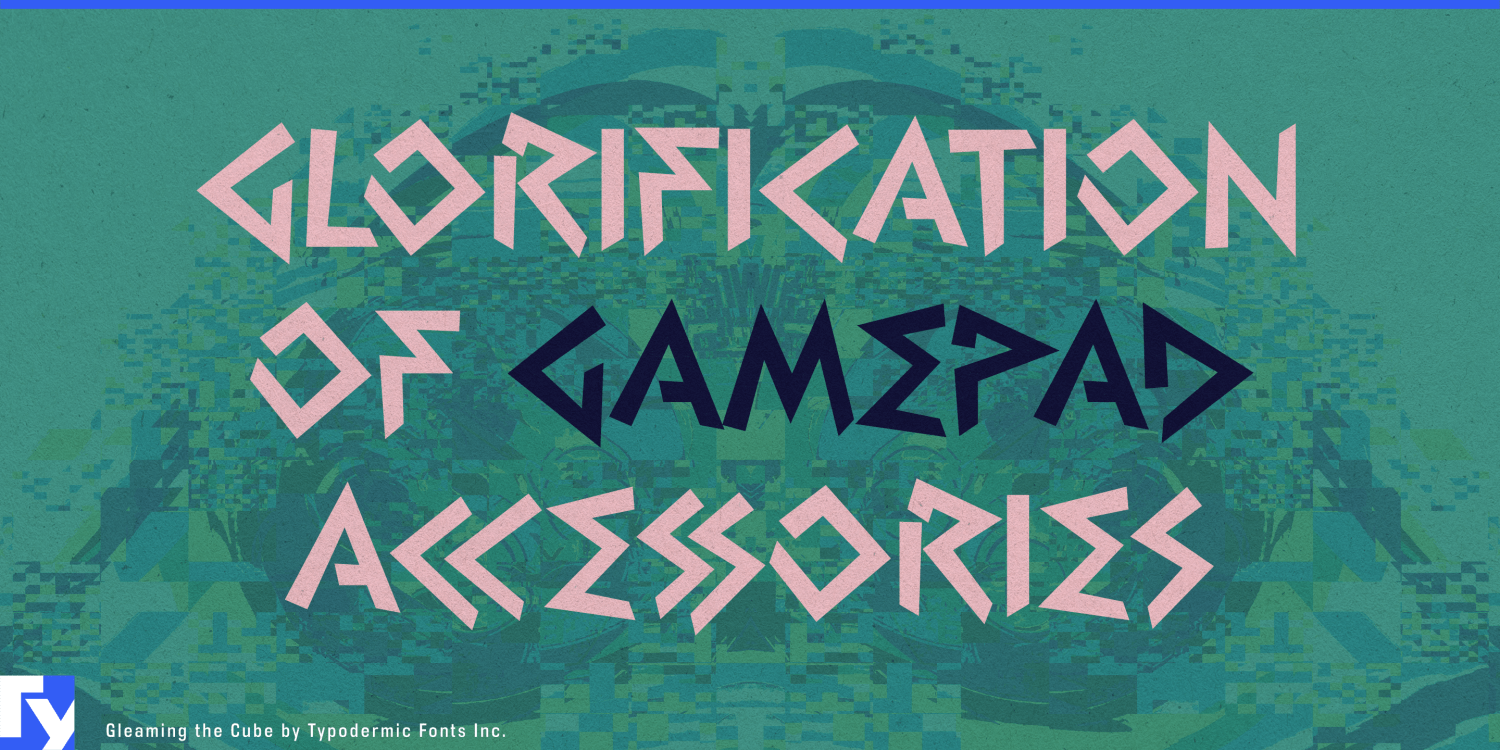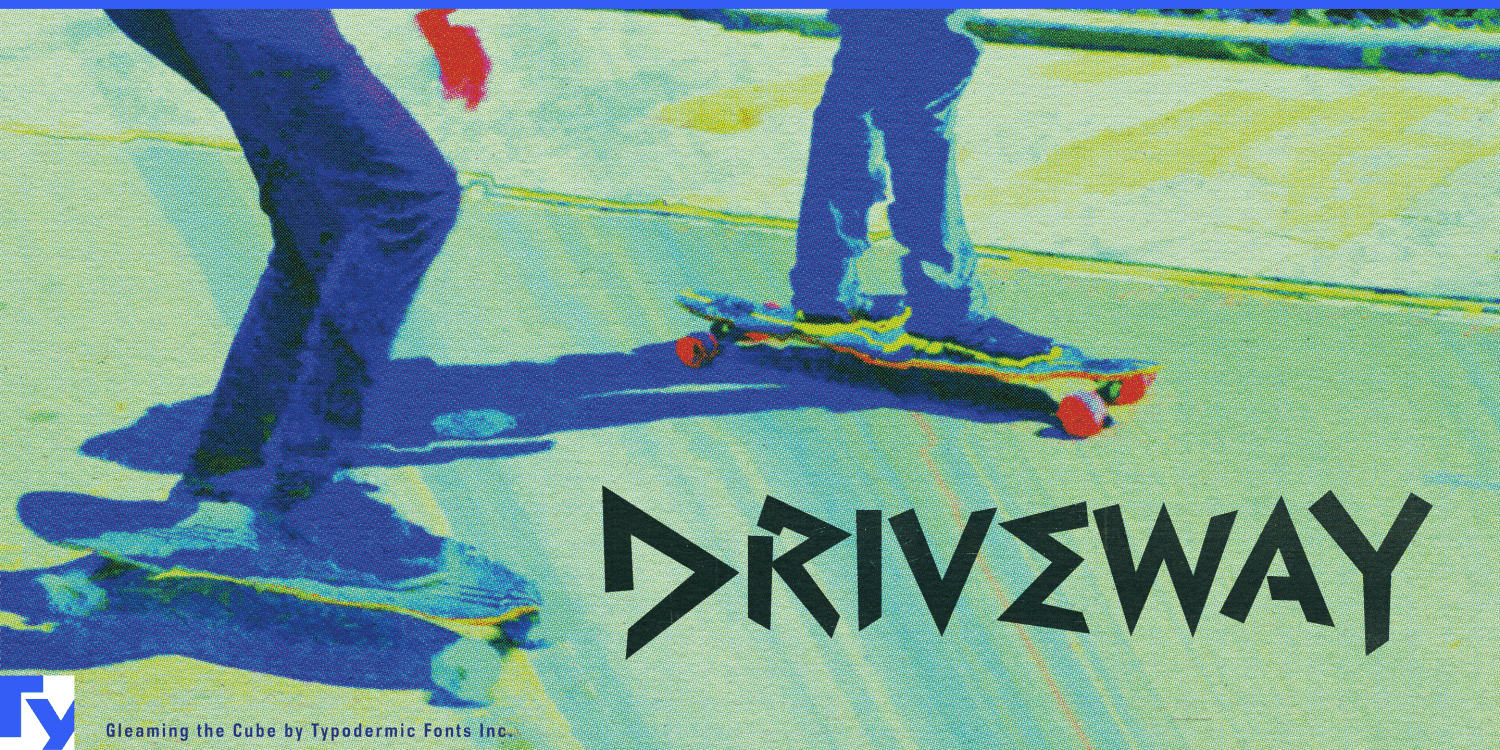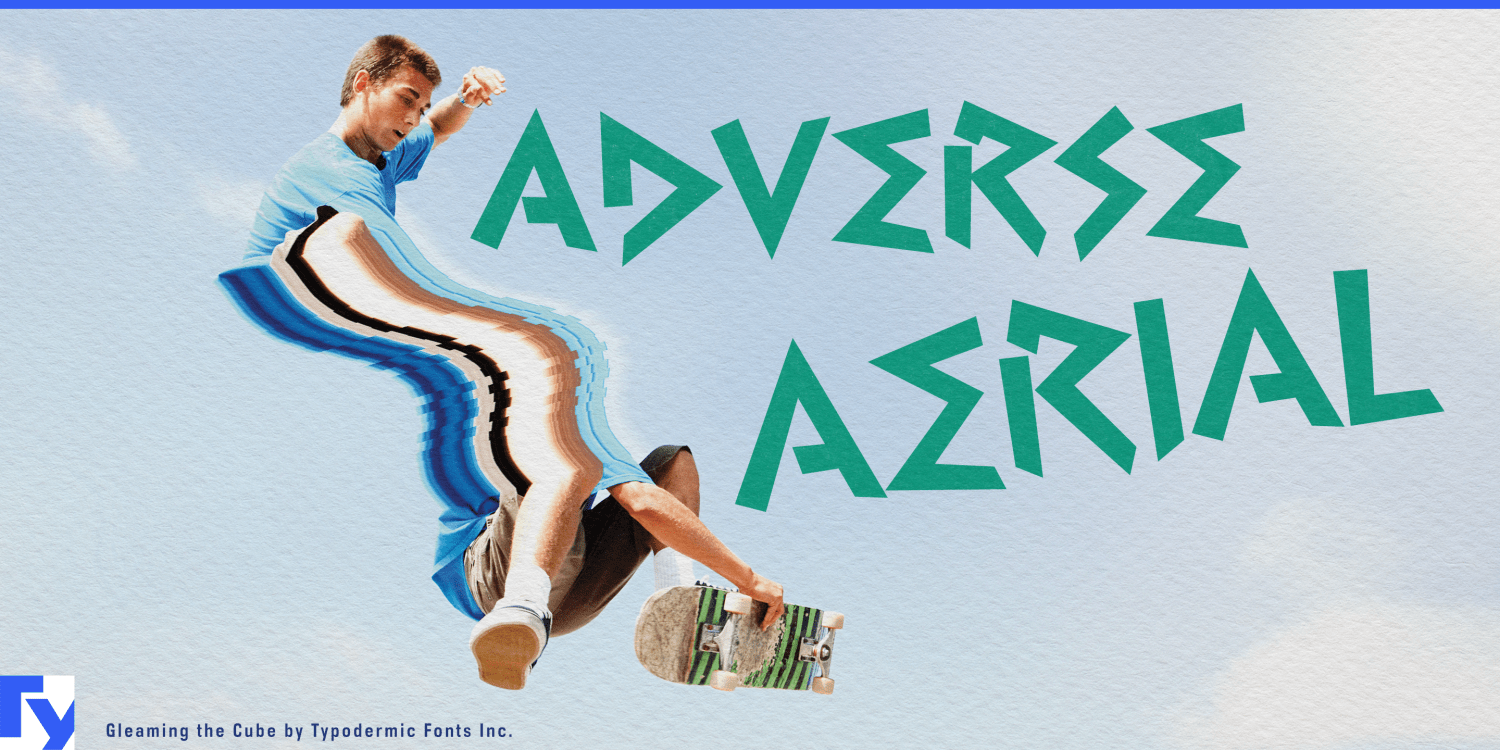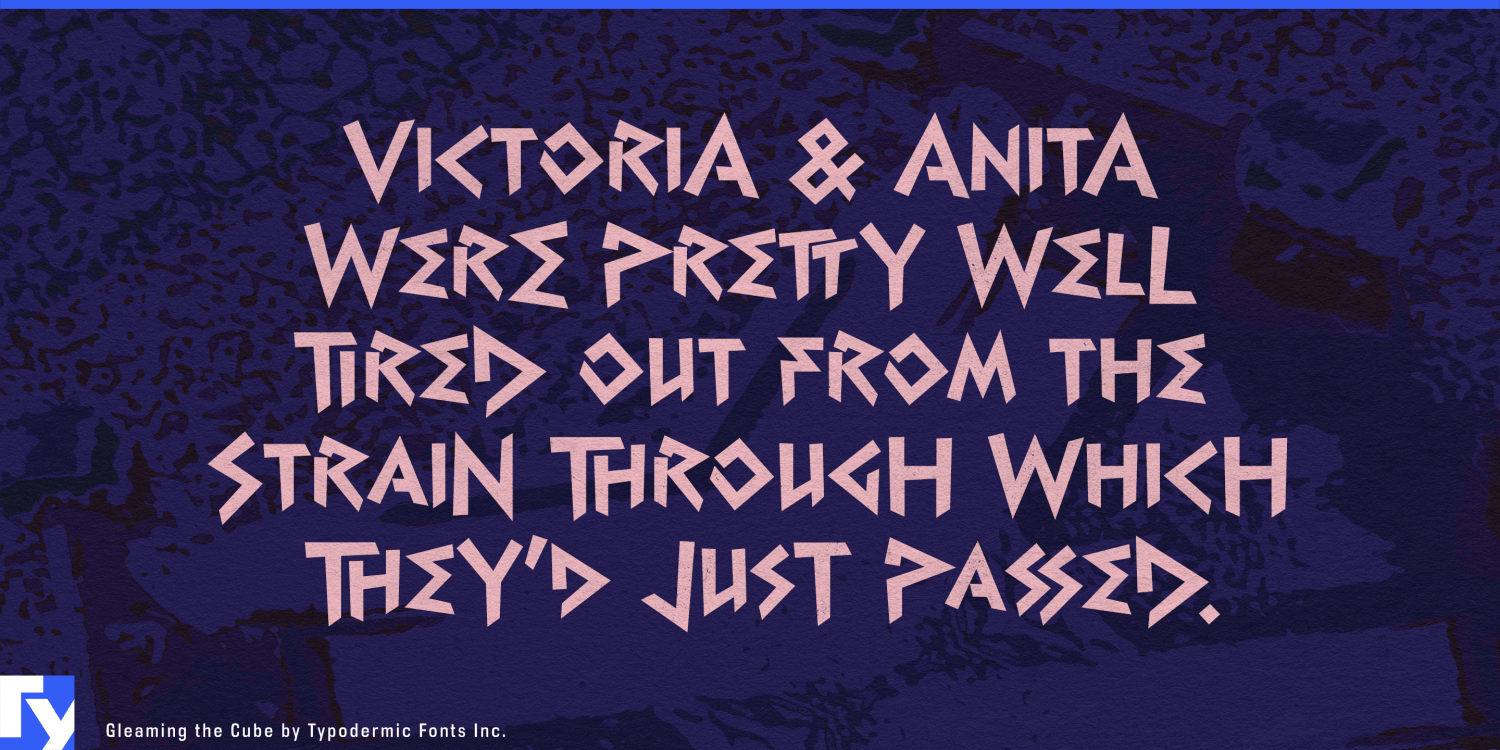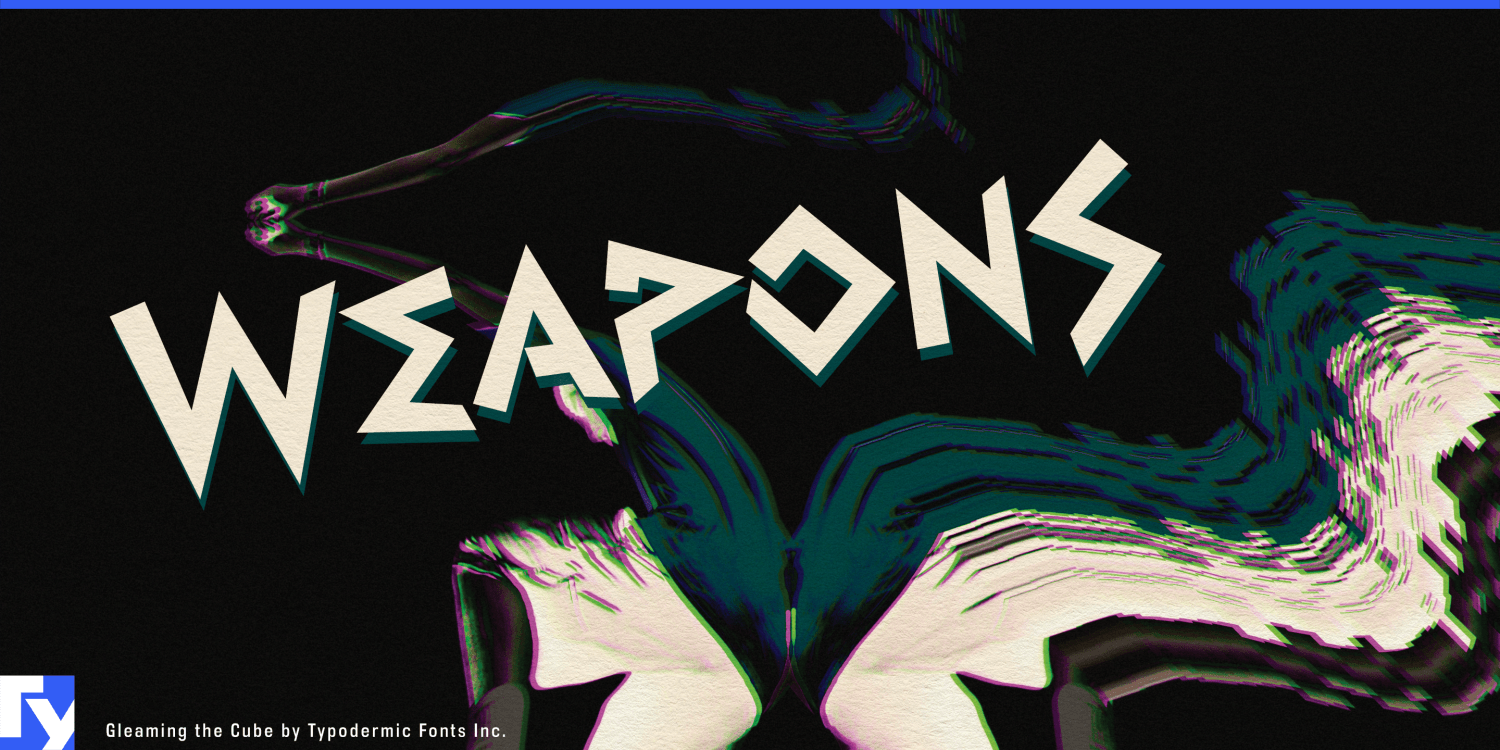
Gleaming the Cube
Dudes and dudettes, prepare to have your minds totally blown by Gleaming the Cube—a typeface that doesn’t just nod to the ’80s and ’90s, it kickflips right into your design with a gnarly ollie and sticks the landing! This isn’t…